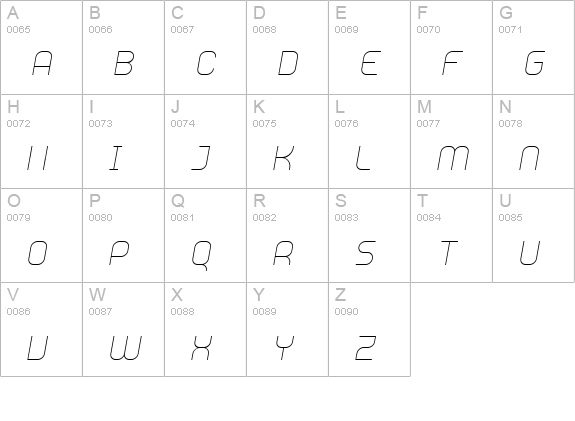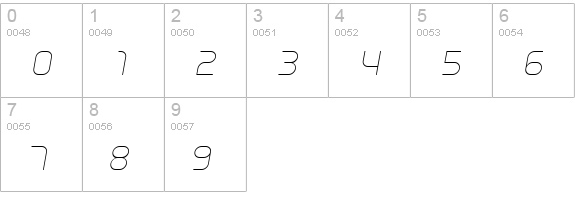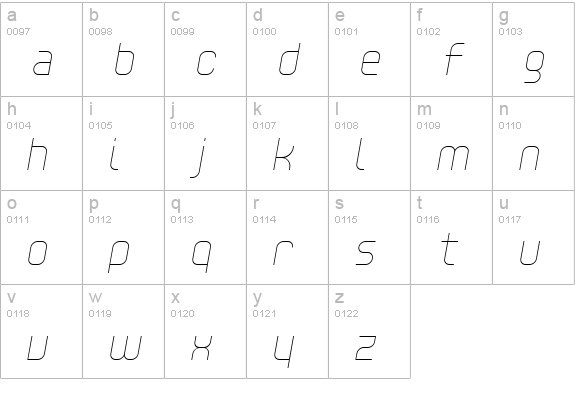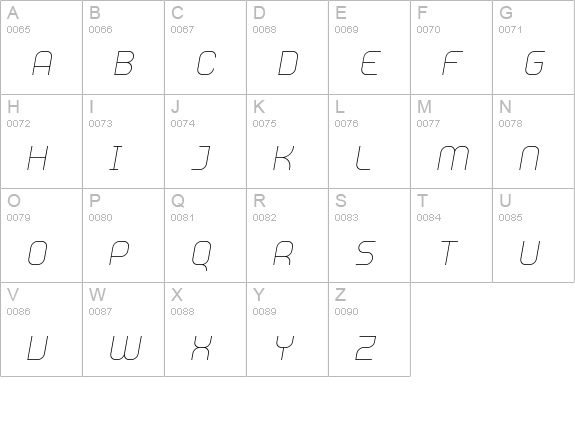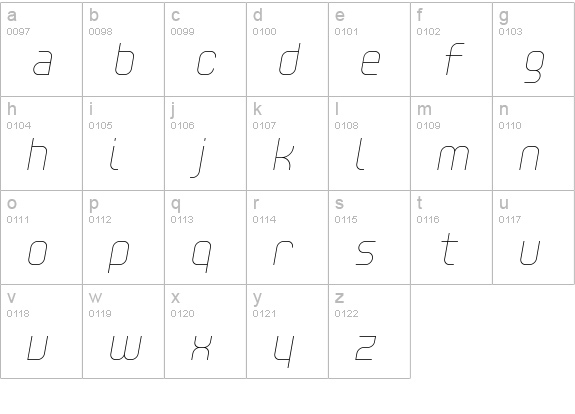
Unisect LightOblique font is a stunning display of elegance and modernity. Its sleek and refined design captures attention instantly, making it the perfect choice for projects that demand sophistication and style. The light oblique style adds a touch of uniqueness, creating a sense of movement and energy. This font is ideal for a wide range of applications, whether it be branding, advertising, editorial design, or even personal projects. Its versatility allows it to adapt to various design concepts and themes, making it a valuable asset for any creative endeavor. One of the best things about Unisect LightOblique font is that it is available for free. Yes, you read that right! This exquisite font can be downloaded at no cost from FontsMarket.com. This means that you can enhance your designs without breaking the bank, making it a perfect choice for both professionals and hobbyists alike. Not only is Unisect LightOblique font visually appealing, but it also boasts exceptional legibility. The carefully crafted letterforms ensure that your message is delivered with clarity and impact. Whether you are using it for titles, headlines, or body text, this font guarantees readability without compromising on style. The attention to detail in Unisect LightOblique font is truly remarkable. Each letter has been meticulously designed to create a harmonious and balanced composition. The subtle curves and gentle slant of the oblique style add a touch of dynamism, while the clean lines and precise angles give it a polished and professional look. With Unisect LightOblique font, you have the power to elevate your designs and create a lasting impression. Its timeless appeal and modern aesthetics make it a must-have for designers and creatives who strive for excellence. Download this font for free at FontsMarket.com and unlock a world of endless design possibilities.